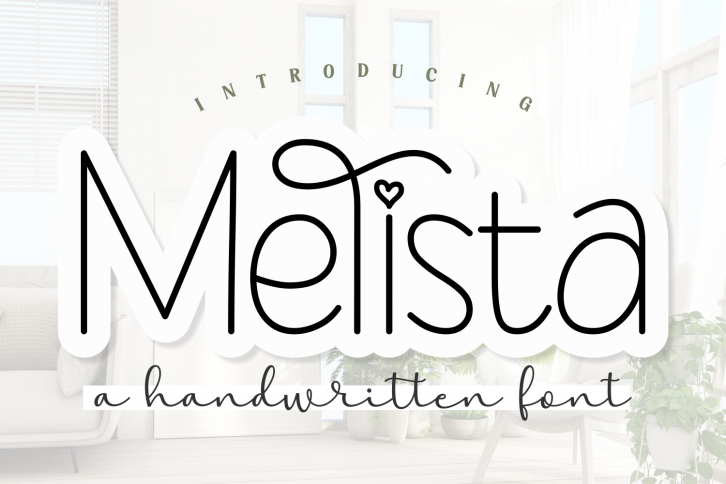
The Melista Font is a lovely handwritten font, with a smooth flow and cute little hearts over the i’s. Combine the uppercase and lowercase characters for a unique look. This font is perfect to use for journaling, scrapbooking, card making and much more!